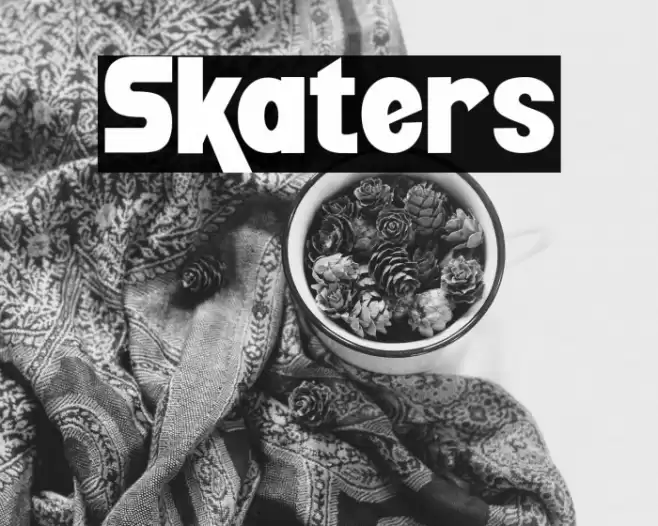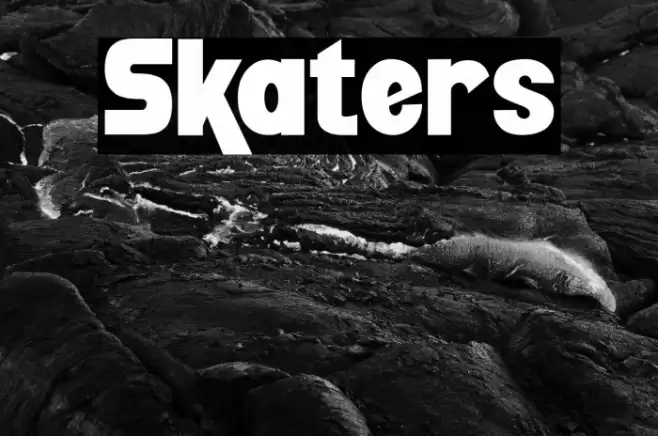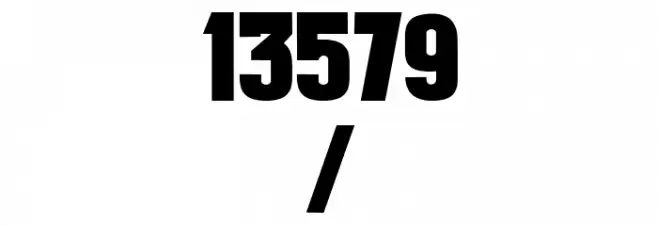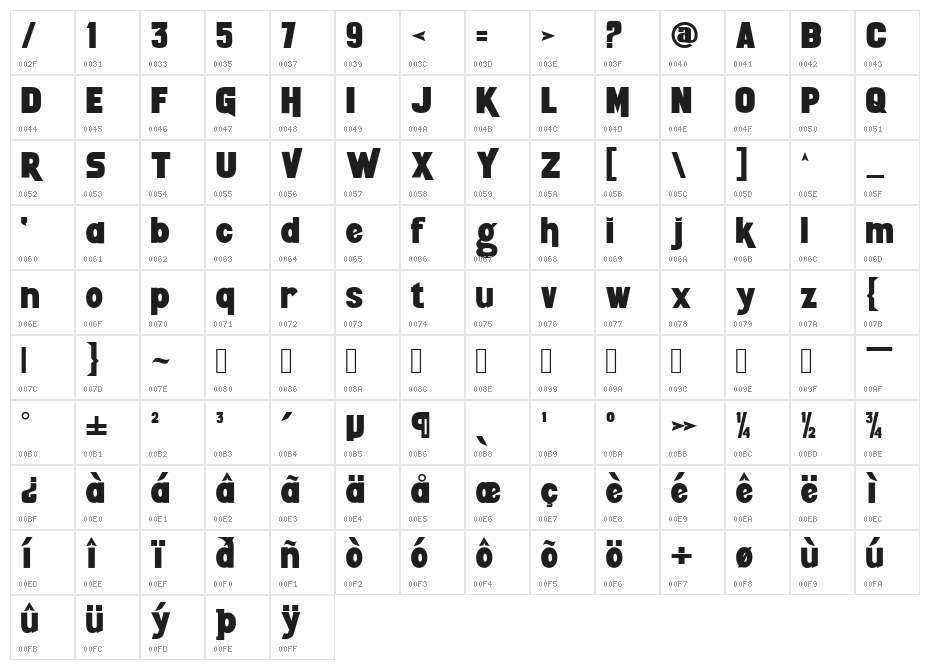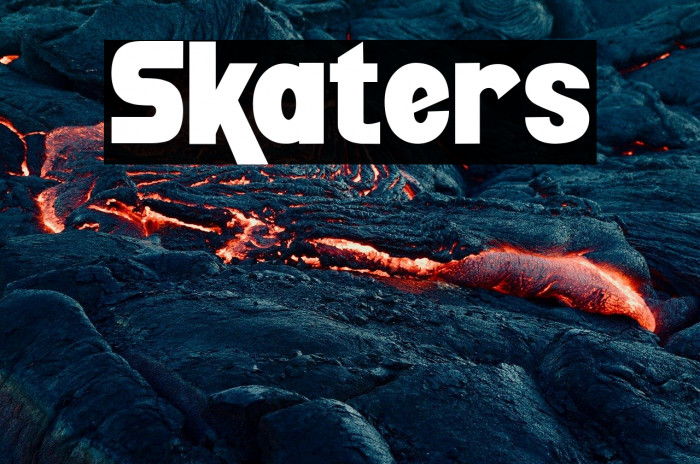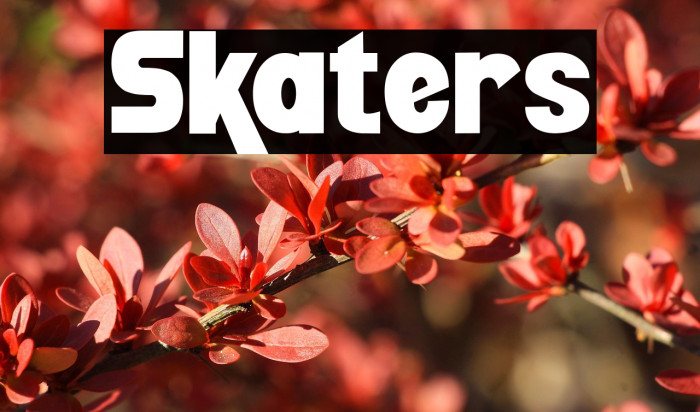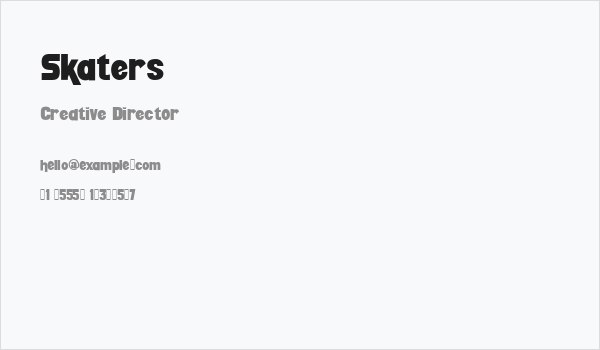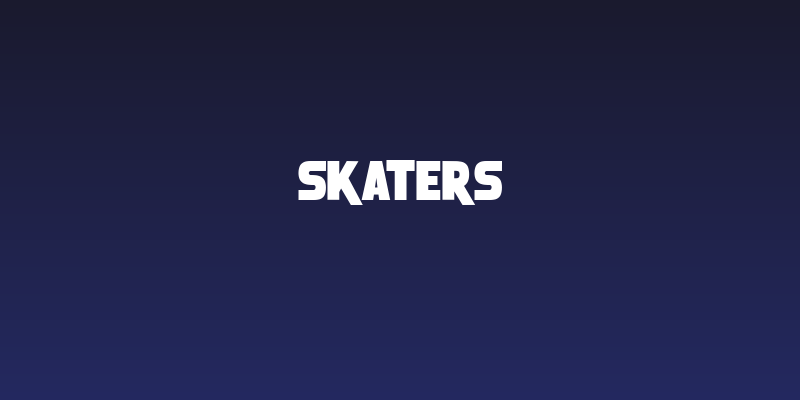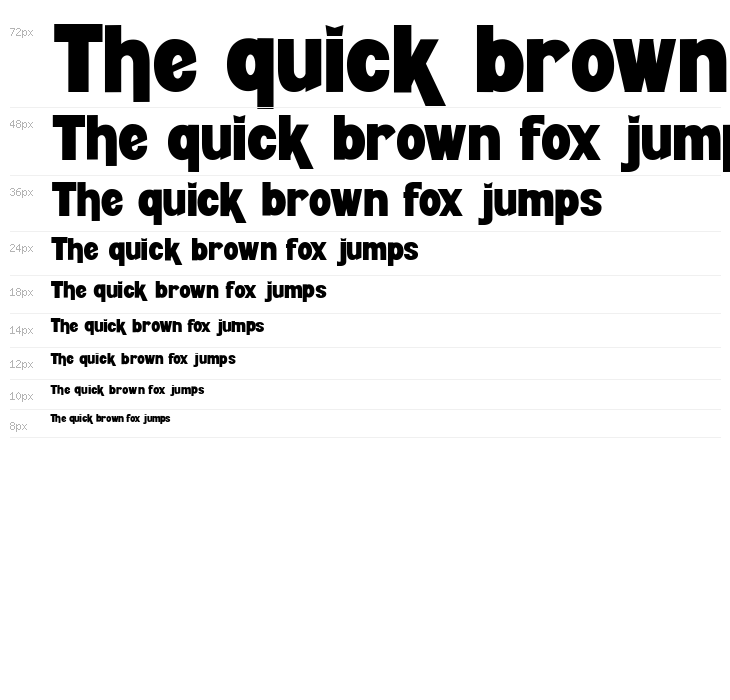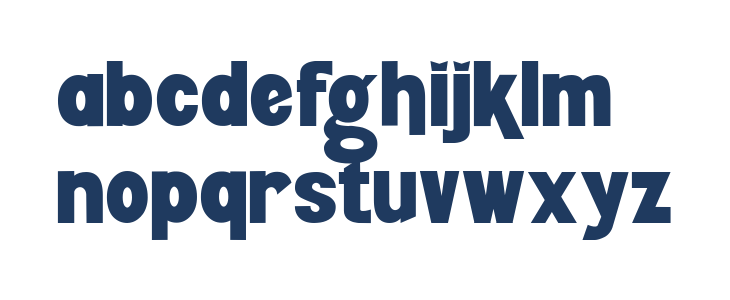
Skaters Font
Skaters Description
This font features bold, thick strokes with a strong, impactful presence. The uppercase letters are uniform in height, creating a cohesive look, while the lowercase letters maintain a consistent style with slightly rounded edges. The numbers are bold and easily readable, complementing the overall design. The font's style is modern and assertive, making it suitable for attention-grabbing headlines or branding materials. The character spacing is tight, enhancing its bold appearance. The font lacks any decorative elements, focusing instead on a clean and straightforward aesthetic.
A bold, modern font with thick strokes and tight spacing from Regular fonts.
- Proposed Projects: Ideal for headlines, posters, branding, and advertising materials.
- Character Spacing: Tight